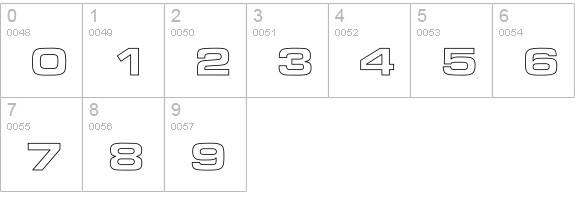
Oleo Extended Hollow Font Details
Oleo Extended Hollow is a distinctive, extended-width variant in the Oleo typeface family \xE2\x80\x94 well suited to design and typography projects.
Oleo Extended Hollow is a stunning and elegant typeface that exudes sophistication and charm. With its delicate lines and graceful curves, this font is perfect for adding a touch of refinement to any design project. Whether you're creating invitations, branding materials, or website headers, Oleo Extended Hollow will elevate your work to a new level of style. One of the best things about Oleo Extended Hollow is that it is completely free to download. You can get your hands on this beautiful font at FontsMarket.com, where you'll find a wide selection of high-quality fonts for all your creative needs. Don't miss out on the opportunity to enhance your designs with this exquisite typeface - download Oleo Extended Hollow today and let your creativity shine!